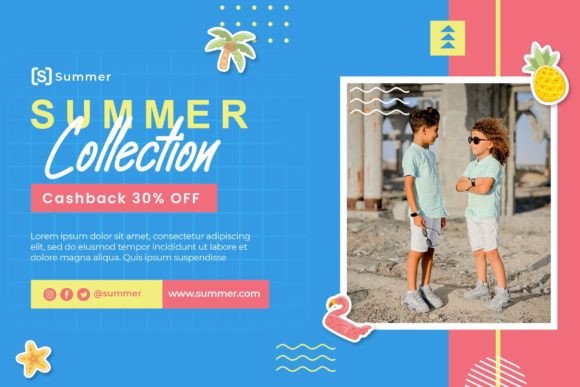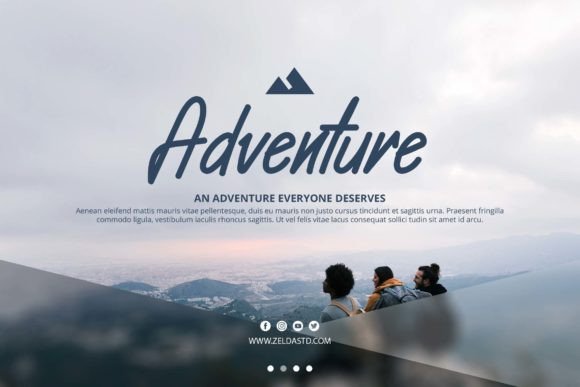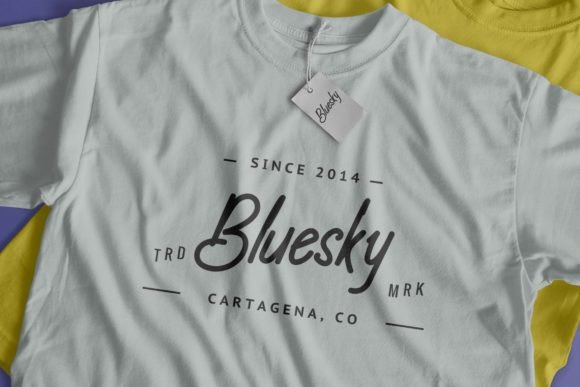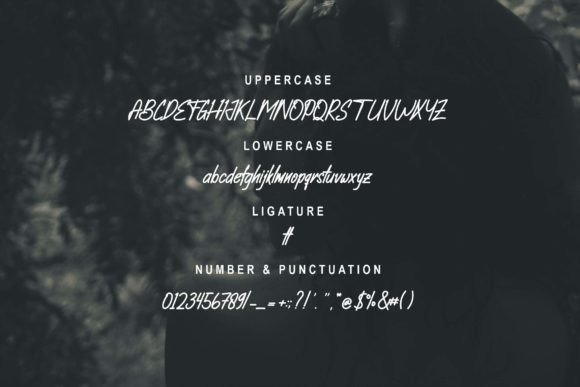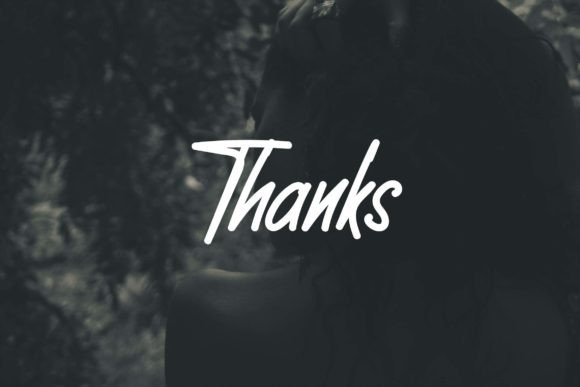
Introduction to Febiola Font
Febiola font is a handwritten display font with a strikingly authentic feel font is our new item that is suitable for your Posters.
Great for Logo, Poster, Sticker, Jerseys, Invitation Cards, Brochure, etc .
Key Features of Febiola Font
Febiola Font offers exceptional quality and versatility, making it a valuable addition to your design toolkit. Whether you’re creating for personal projects or commercial use, Febiola Font delivers professional results.